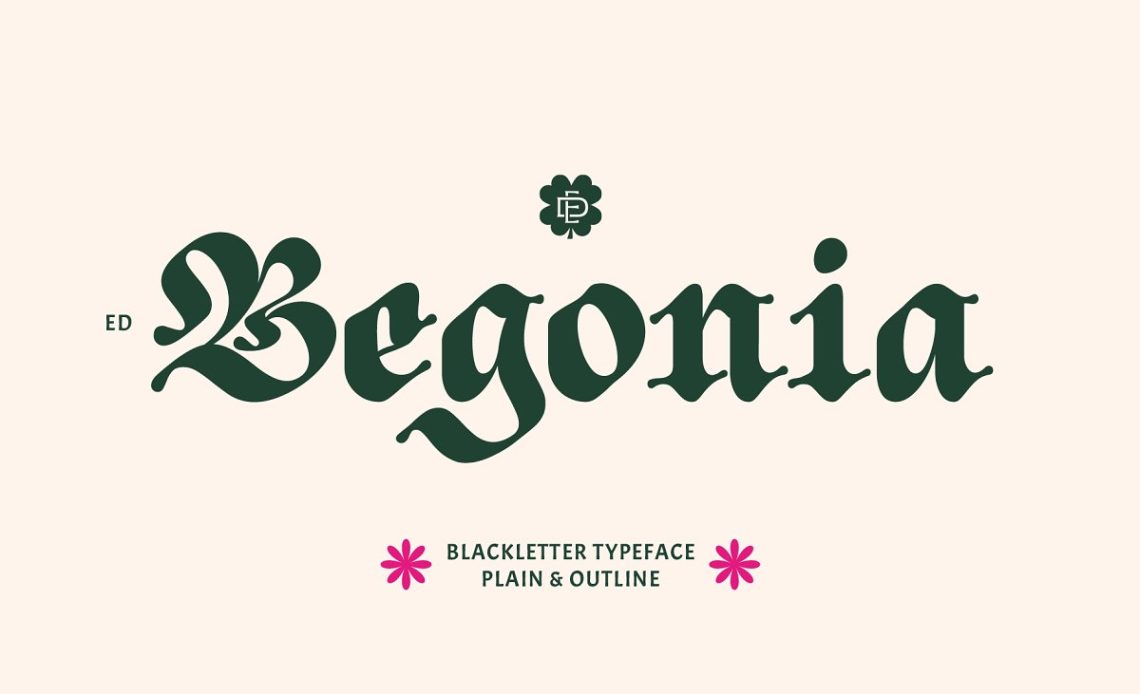
ED Begonia - Blackletter Typeface is not just any font family; it is a creative masterpiece that every designer should consider. Created by Eko Setiawan, this font has a modern twist to the classic blackletter style, making it perfect for both web and print designs.
With its petal-inspired curves, ED Begonia has a unique look that can add personality to your design. This font comes with several opentype features, such as ligatures, alternative characters, and stylistic sets. It also has multi-language support, making it accessible to designers worldwide.
ED Begonia is not only visually appealing but also versatile. It has two styles - plain and outline - that can complement any design needs. This font can also be combined with other fonts to create an even more stunning design.
With a total of 375 glyphs, including uppercase and lowercase letters, punctuation marks, symbols, ligatures, and alternative characters, ED Begonia provides endless possibilities to make your design stand out. It is perfect for branding, logo design, cover design, books, magazines, apparel designs, headlines, and so much more.
In summary, if you're looking for the best fonts for web and print, look no further than ED Begonia - Blackletter Typeface. Its unique and modern style, opentype features, and versatility make it the perfect addition to your design toolbox.